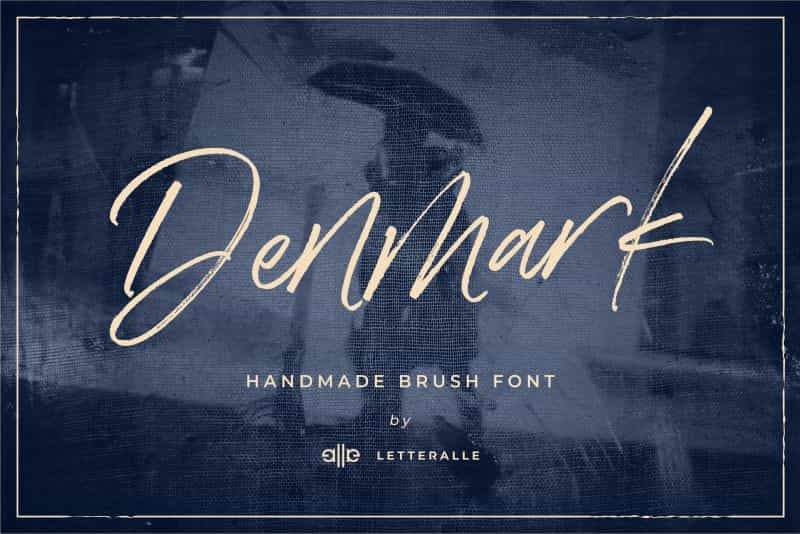
Denmark font is identified as a brush font and it’s congruent with modern and elegance. The fact that the perfect form is missing somehow gives a natural look. Danmark is handmade which consists of an alternative glyps set (uppercase & lowercase), numeral, punctuation and MULTILINGUAL.